TP Sky Modern Blk Development Story 03: “Experiment!”
I introduced the story of the “adjustment of the structure and thickness in kanji trials” in the previous article of the series. There were various other adjustments and experiments in the trial stage, including making samples with type face rates at intervals of a few percent. As the largest possible type face rate was adopted in the end, when solid typesetting is made in Modern Blk, the space between characters is narrow, and characters line up tightly.
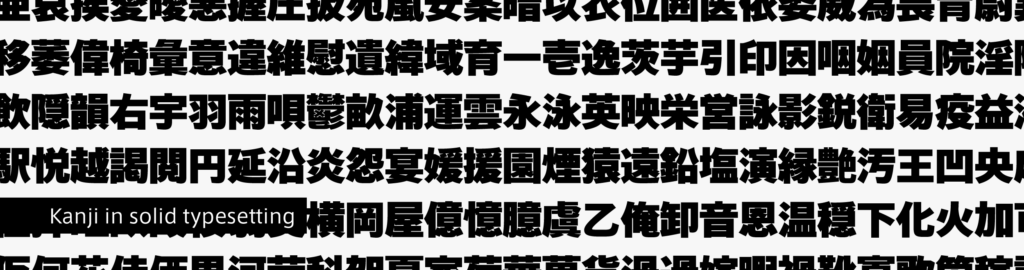
In other experiments with awareness of thickness, samples were made with an extended font. In another experiment, character width of kanji was changed after dividing the number of strokes. As there is a round family in TP Sky, a sample with a rounded Modern Blk was created. In the trial stage in particular, there are many cases of stopping on the way that may not be directly reflected on the product to be released, but it is also an enjoyable time to test various ideas.